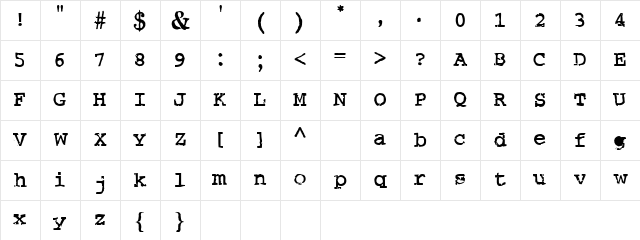
Crud Regular Free Font
Crud Regular
Crud Family
Design Context for Crud
Crud is a composed and adaptable typeface that performs quietly and consistently across a wide range of design contexts.